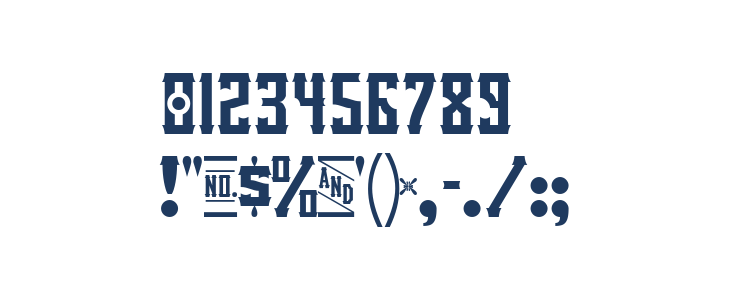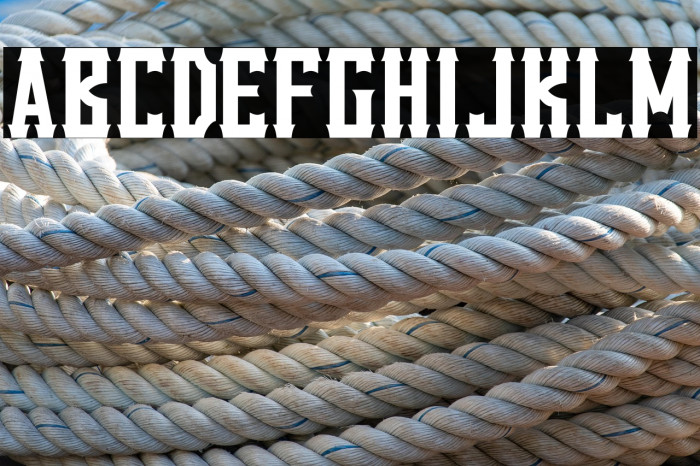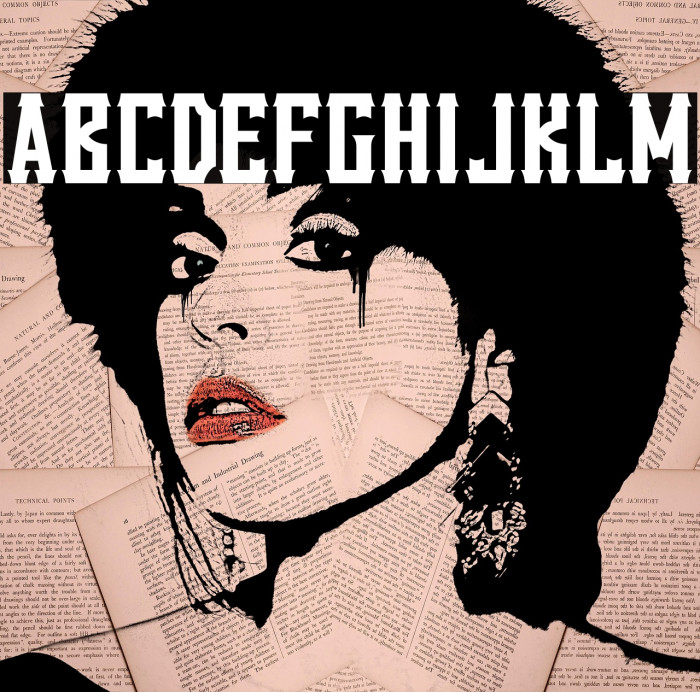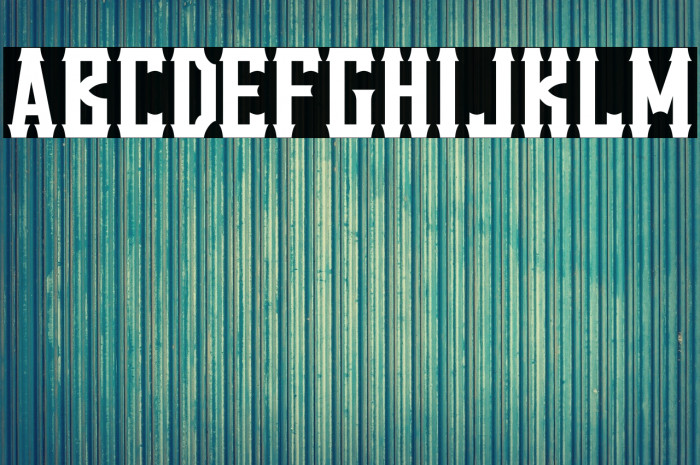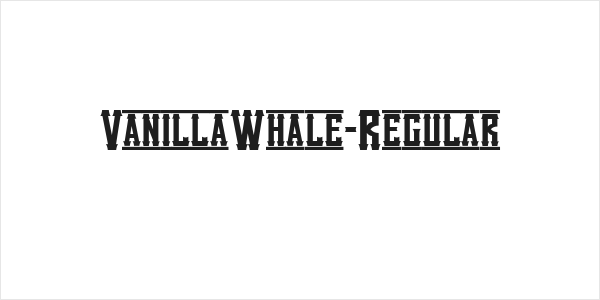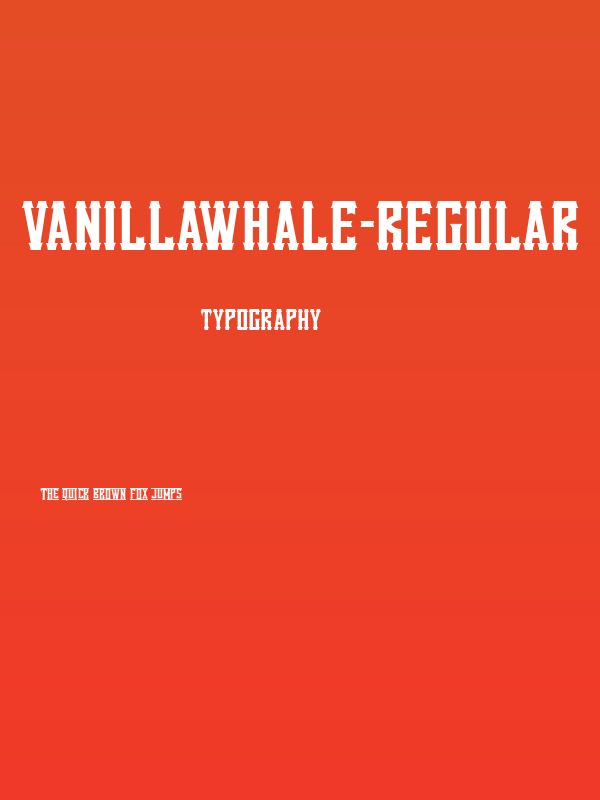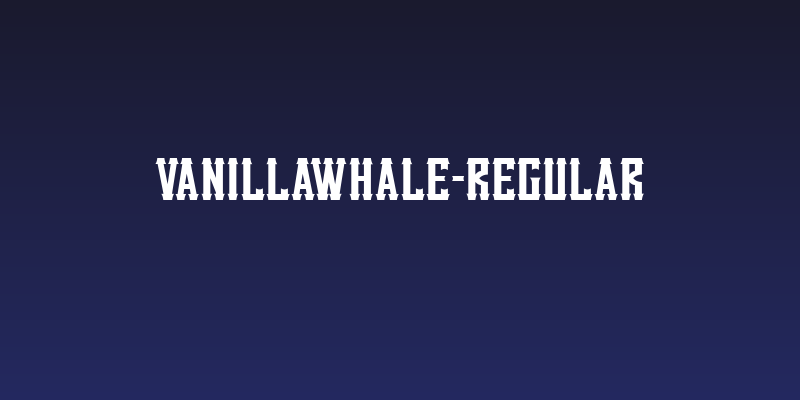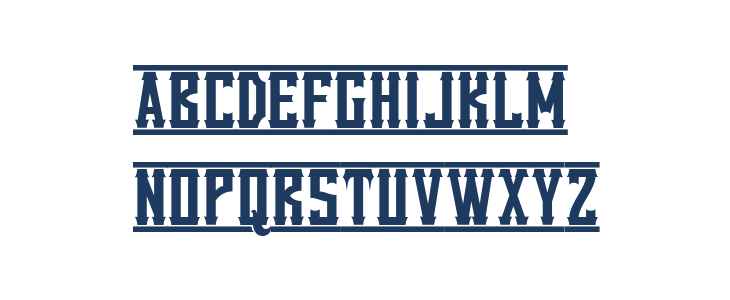
VanillaWhale-Regular Font
VanillaWhale-Regular Description
This font features a bold and striking design with a strong presence, characterized by thick, angular strokes and sharp edges. The uppercase letters are particularly prominent, with a geometric and blocky appearance that commands attention. The numbers and special characters maintain this bold style, ensuring consistency across all elements. The font's unique style is reminiscent of vintage signage or posters, making it ideal for projects that require a strong visual impact. Its decorative nature is enhanced by the intricate details in each character, adding a layer of complexity and interest.
Overall StyleVintage, Decorative
Proposed ProjectsIdeal for posters, signage, branding, and any project needing a bold, vintage look.